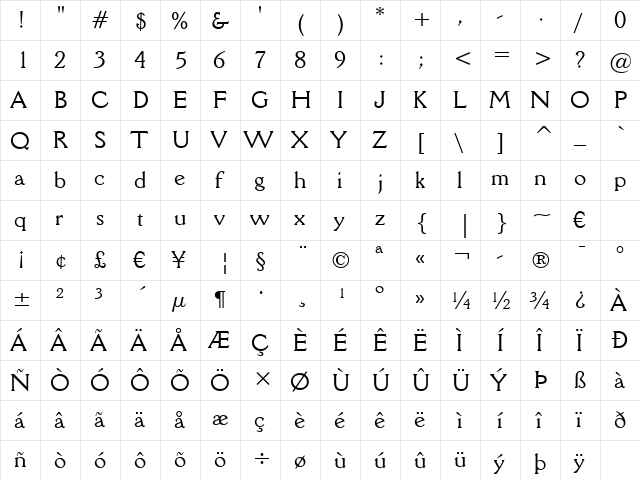
DellaRobbia BT Roman
Design Context for DellaRobbia BT Typeface
DellaRobbia BT offers clean, dependable letterforms without strong stylistic allegiance, making it a practical choice for designers who need flexibility.